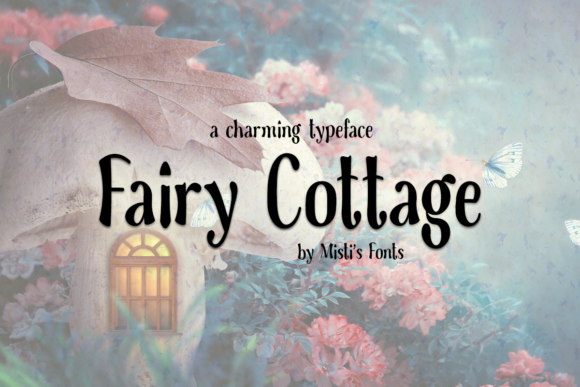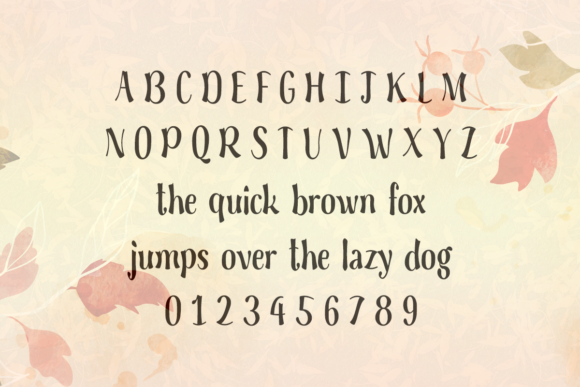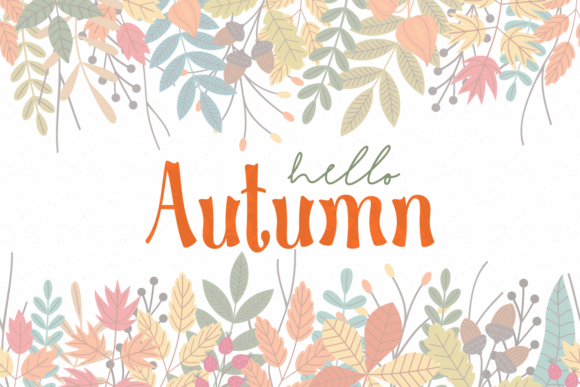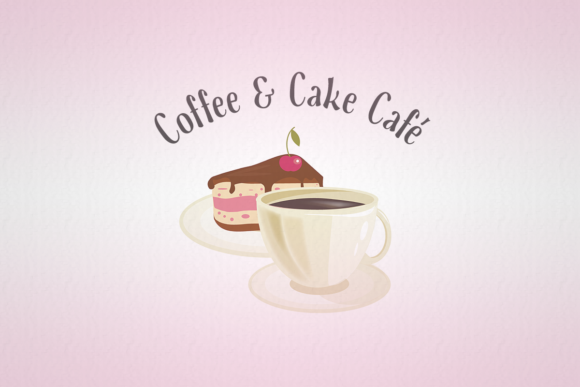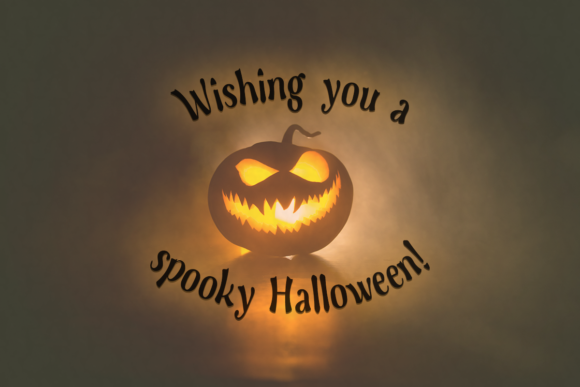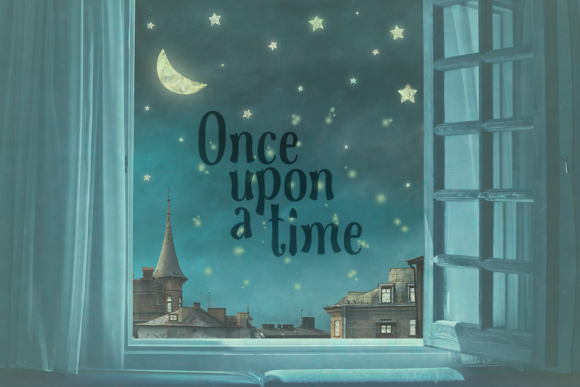
Fairy Cottage is a charming display font. Whether you use it for cartoon related designs, children games or just any creation that requires a lovely touch, this font will be an amazing choice.
Fairy Cottage Font